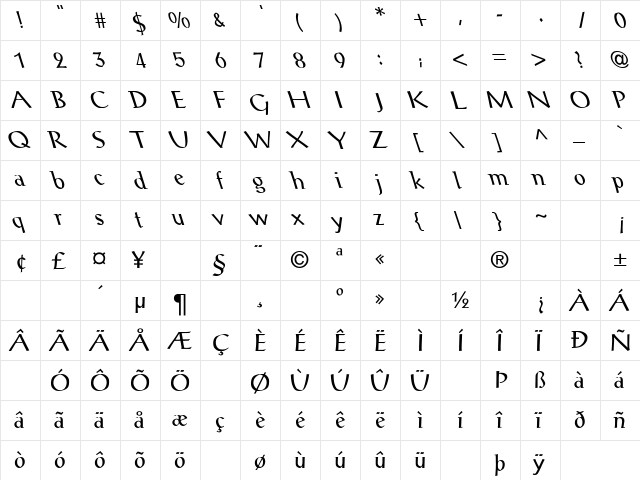
Alex-Antiqua-Book Lefty Regular
Design Context for Alex-Antiqua-Book Lefty Typeface
Alex-Antiqua-Book Lefty is a composed and adaptable typeface that performs quietly and consistently across a wide range of design contexts.